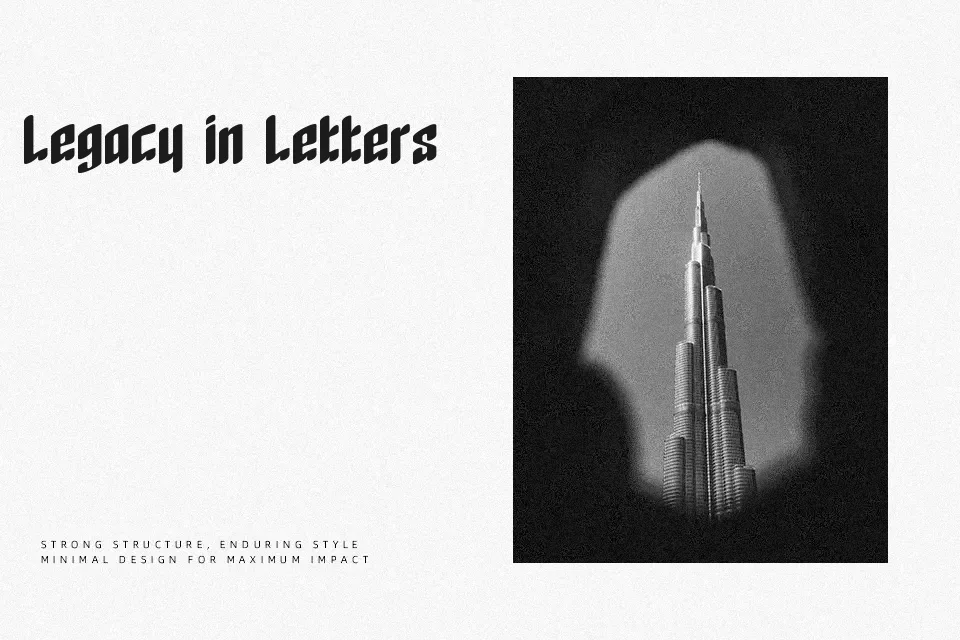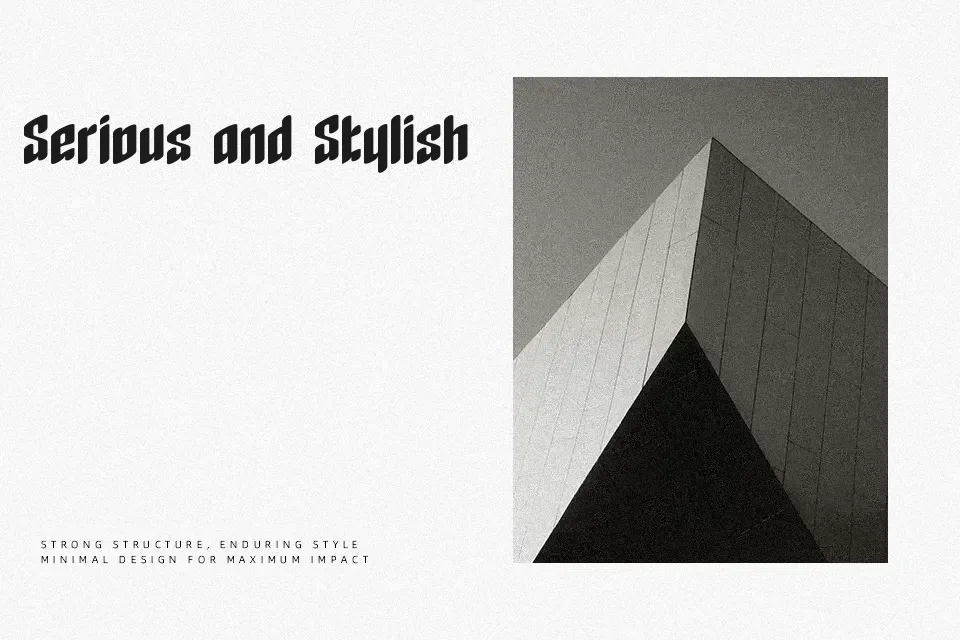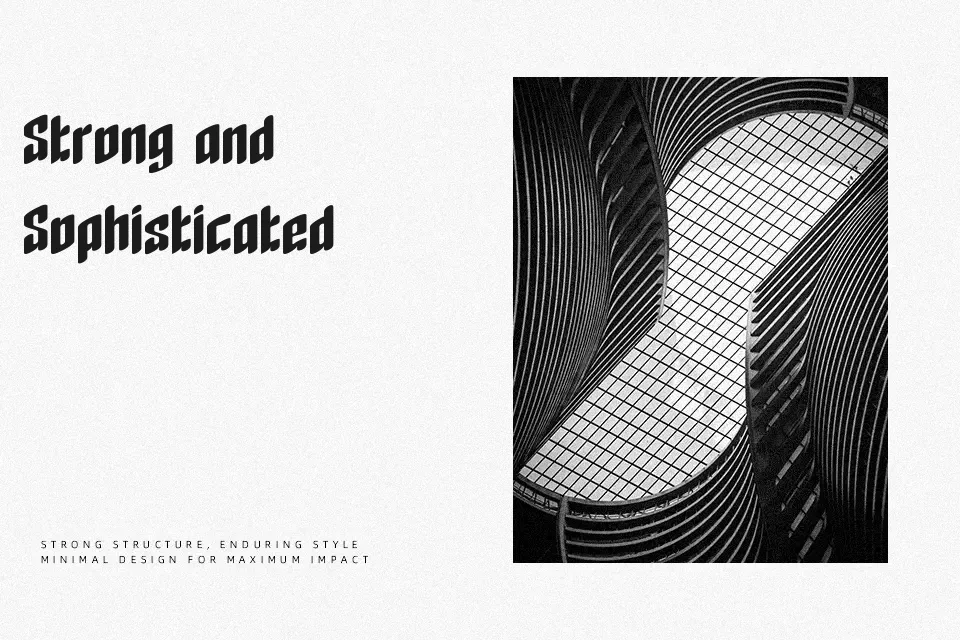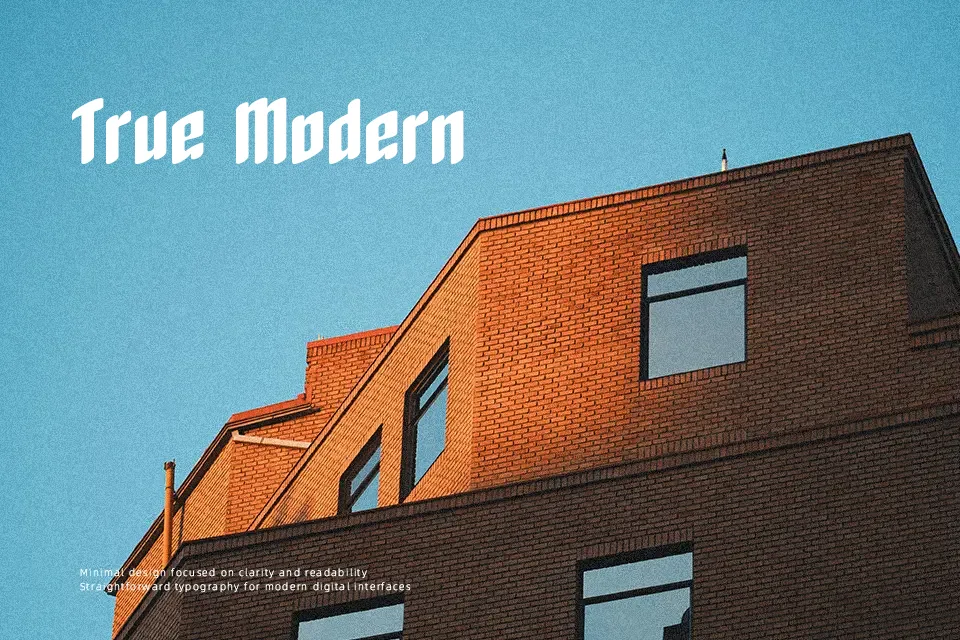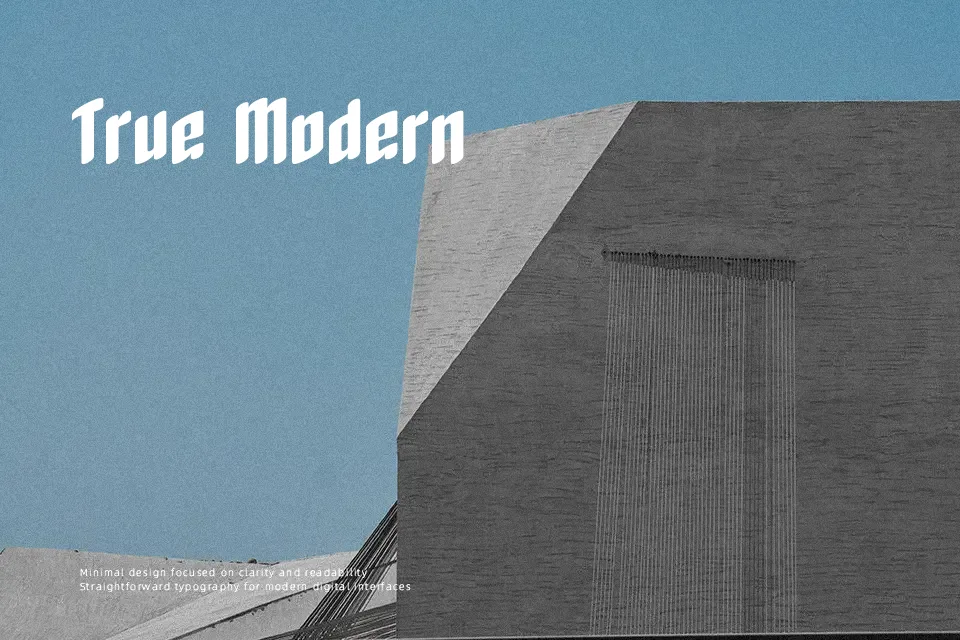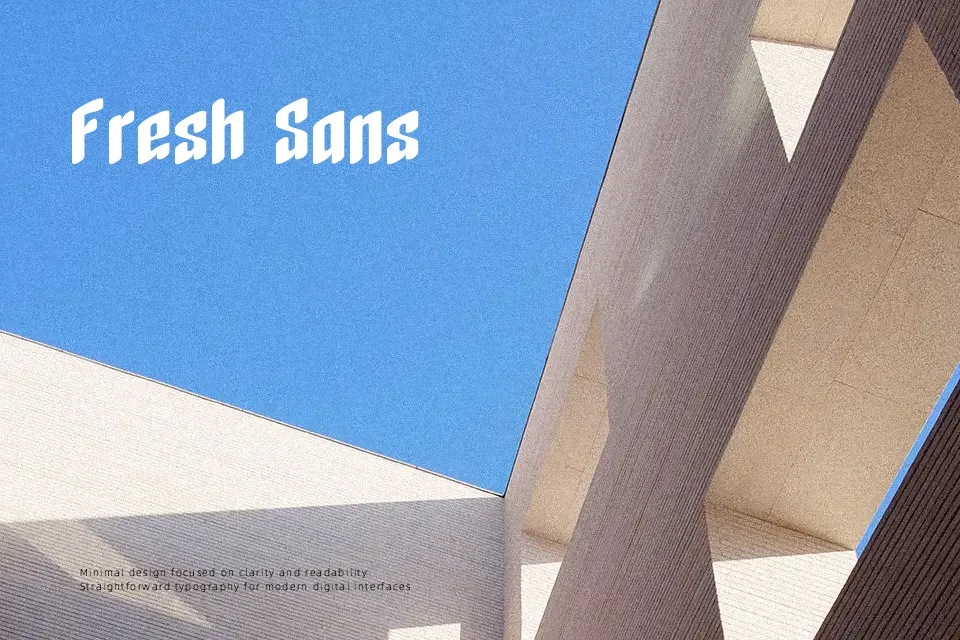
Rage Quit Font
Rage Quit Font presents a bold, condensed structure characterized by heavy, impactful strokes. The tight spacing and dense proportions give the letterforms a solid, blocky appearance that immediately commands attention. Its thick stroke style ensures excellent visibility in large display applications, making the typeface highly effective for bold event posters, esports team graphics, and heavy headline layouts. The tight spacing helps maintain visual clarity in larger headlines, allowing the bold letterforms to stand out powerfully. However, the dense structure and thick strokes become significantly less effective at smaller sizes, greatly reducing continuous reading comfort in long paragraphs or small captions.
esports team logos, gaming graphics, bold event posters, heavy headlines
long paragraph text, small interface labels, continuous reading, dense editorial layouts
Perfect for branding, gaming, and headline, with a bold and condensed style.